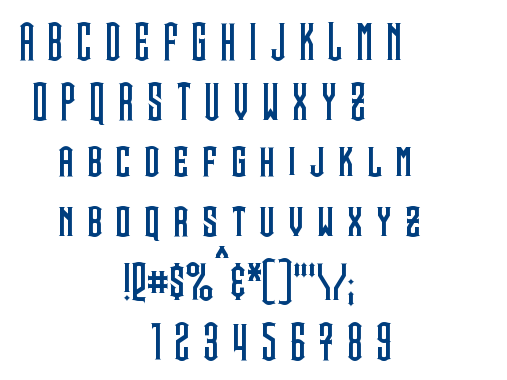
This is based on some ‘steampunk’ themed logos, including convention events. It’s a very tall, bold typeface with a somewhat Victorian/Gothic feel. Includes Euro and accent characters.